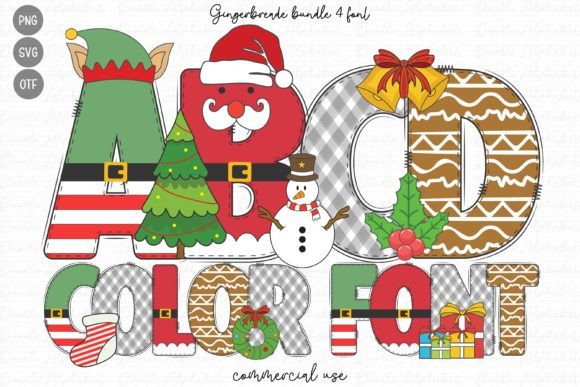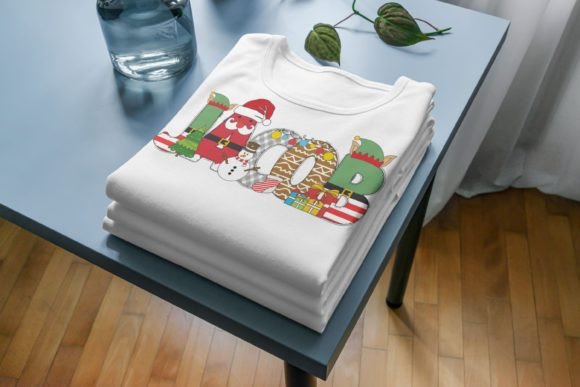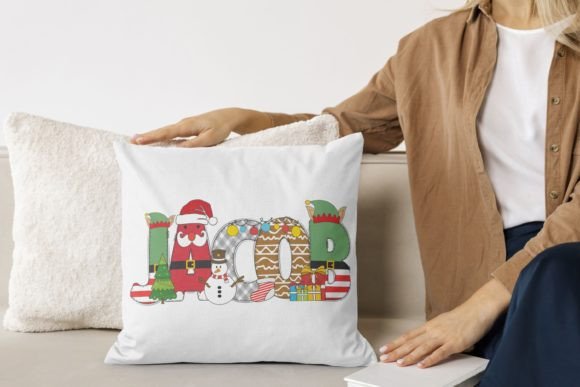
Gingerbread Bundle Font
Gingerbread is a cute and festive color font. It will look amazing on all your Christmas-themed designs, shirts, crafts, and cards and will instantly enhance your projects!